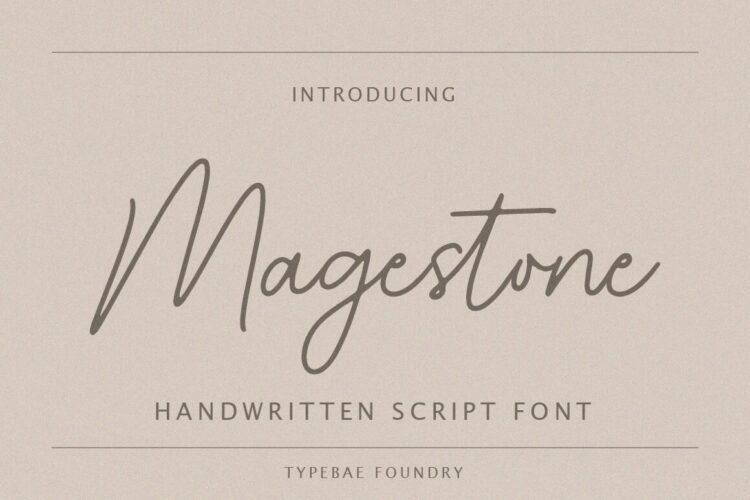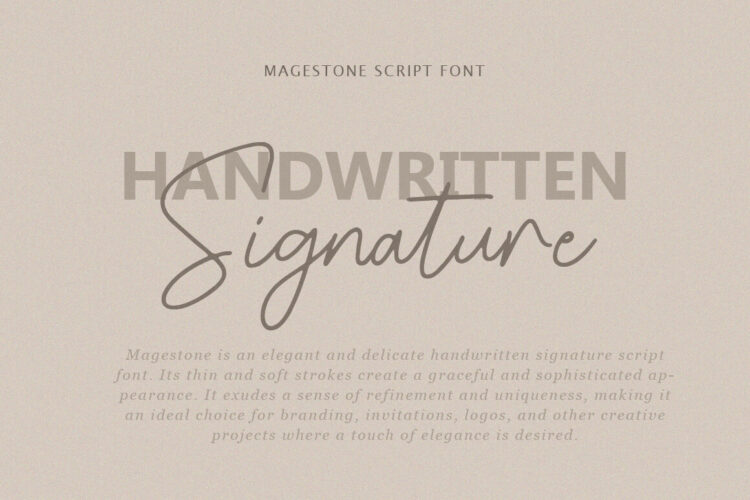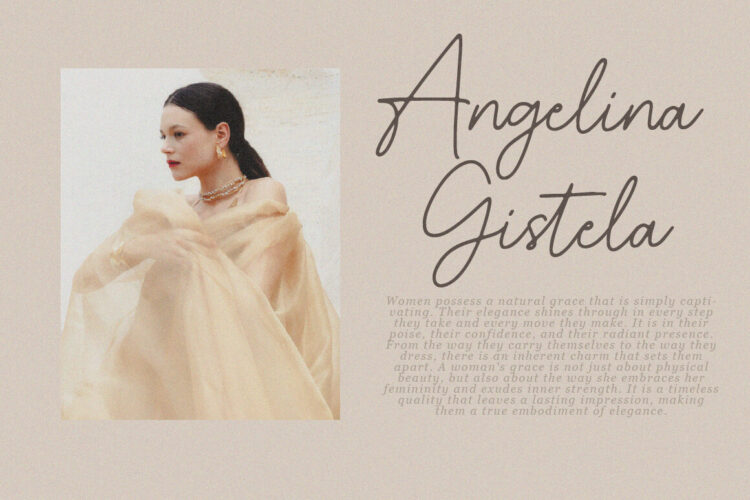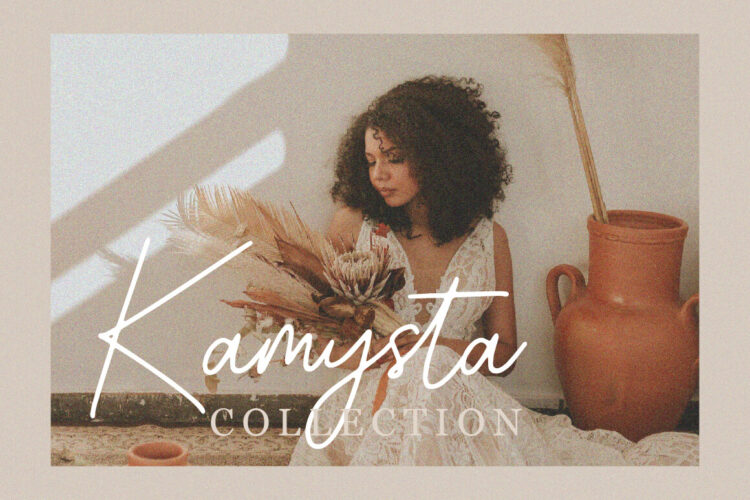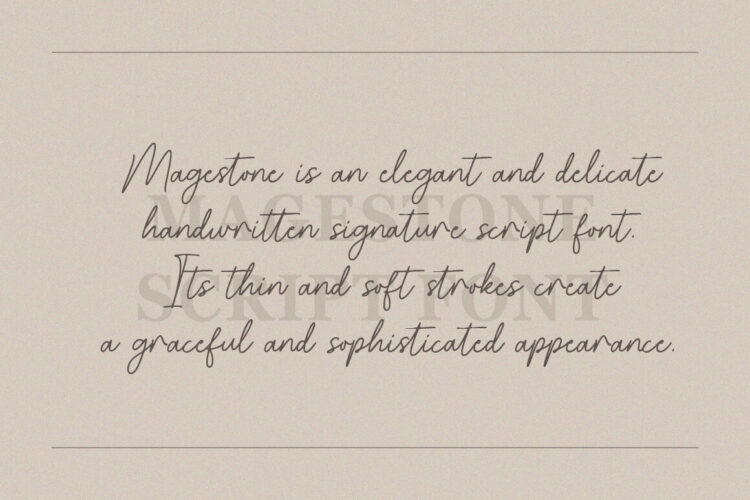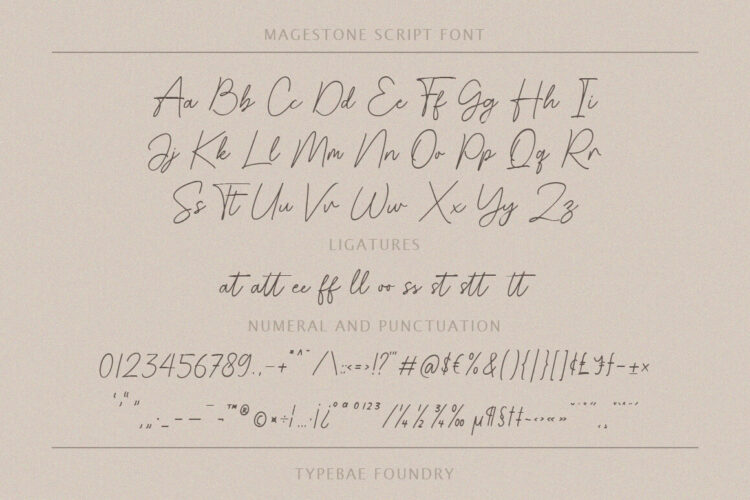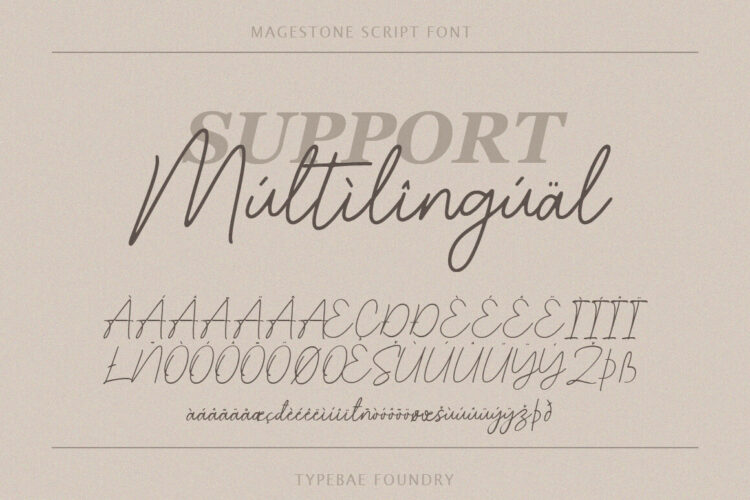
Magestone is an elegant and delicate handwritten signature script font. Its thin and soft strokes create a graceful and sophisticated appearance. It exudes a sense of refinement and uniqueness, making it an ideal choice for branding, invitations, logos, and other creative projects where a touch of elegance is desired.
- Full alphabet and punctuation
- Ligature feature
- Multilingual Support